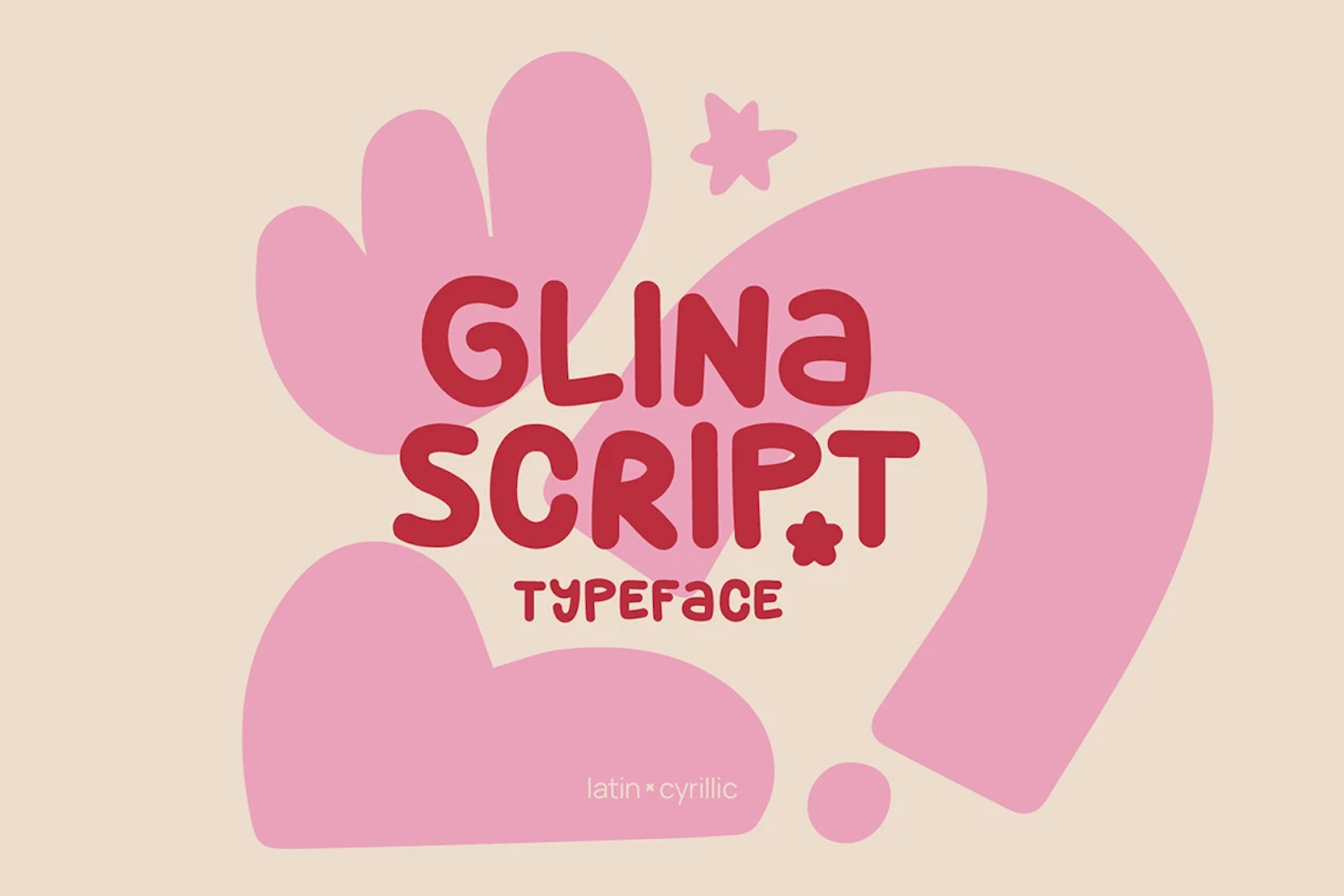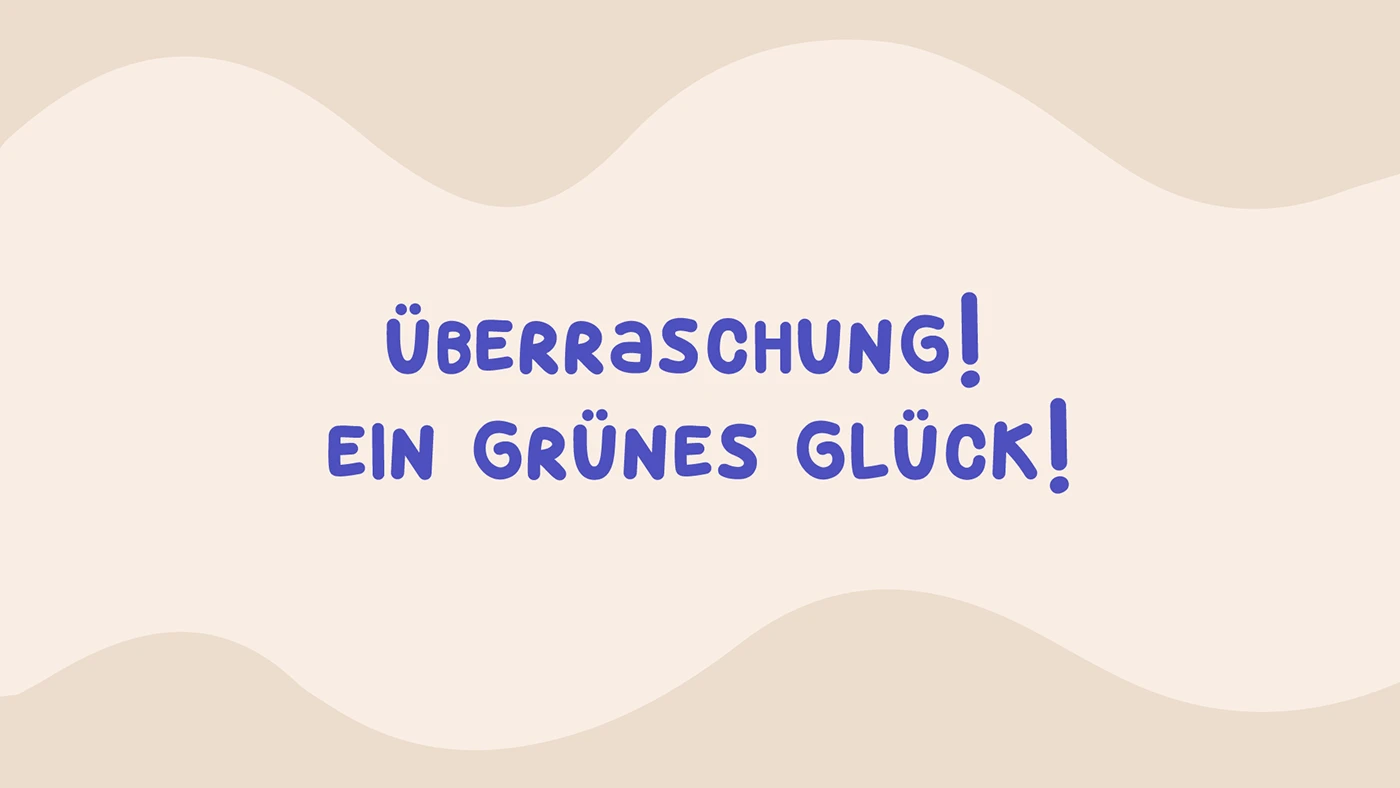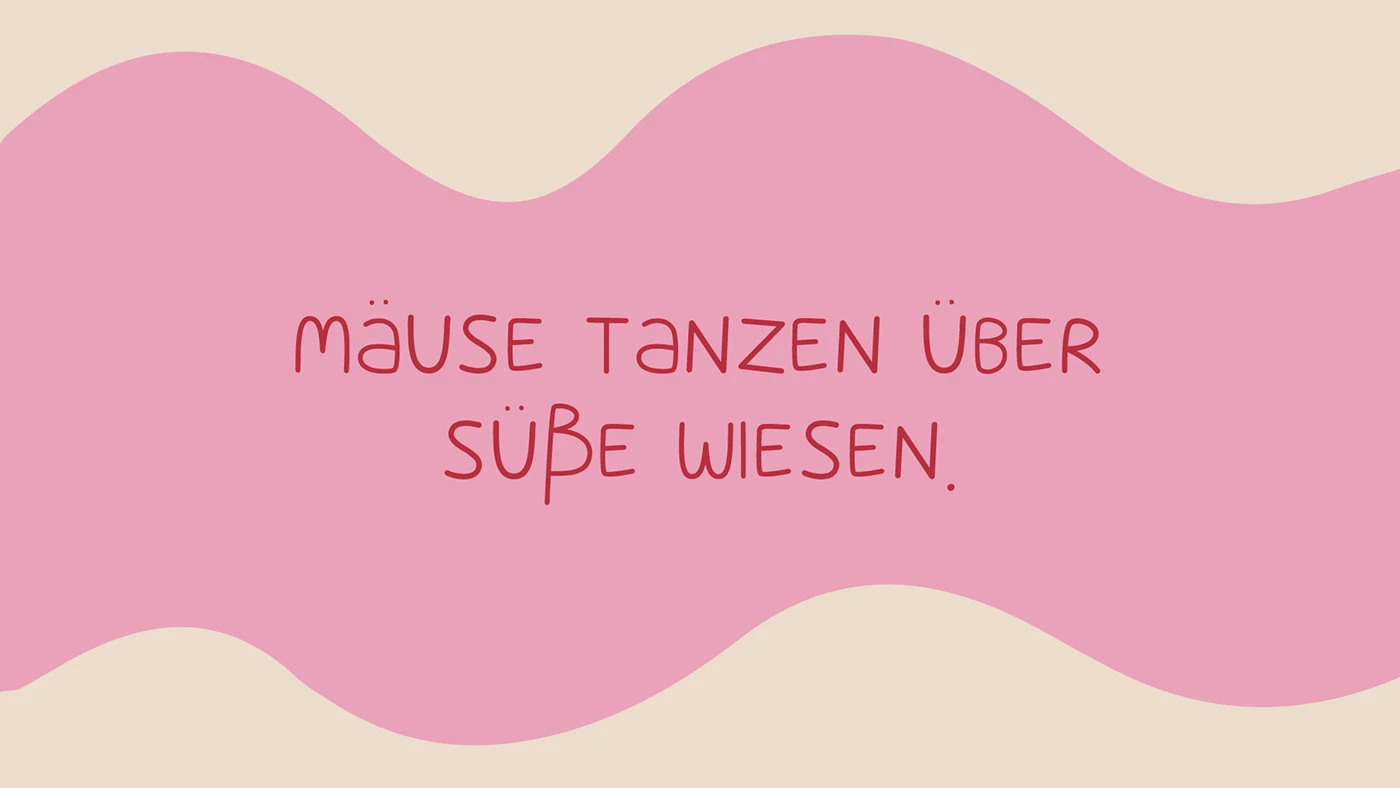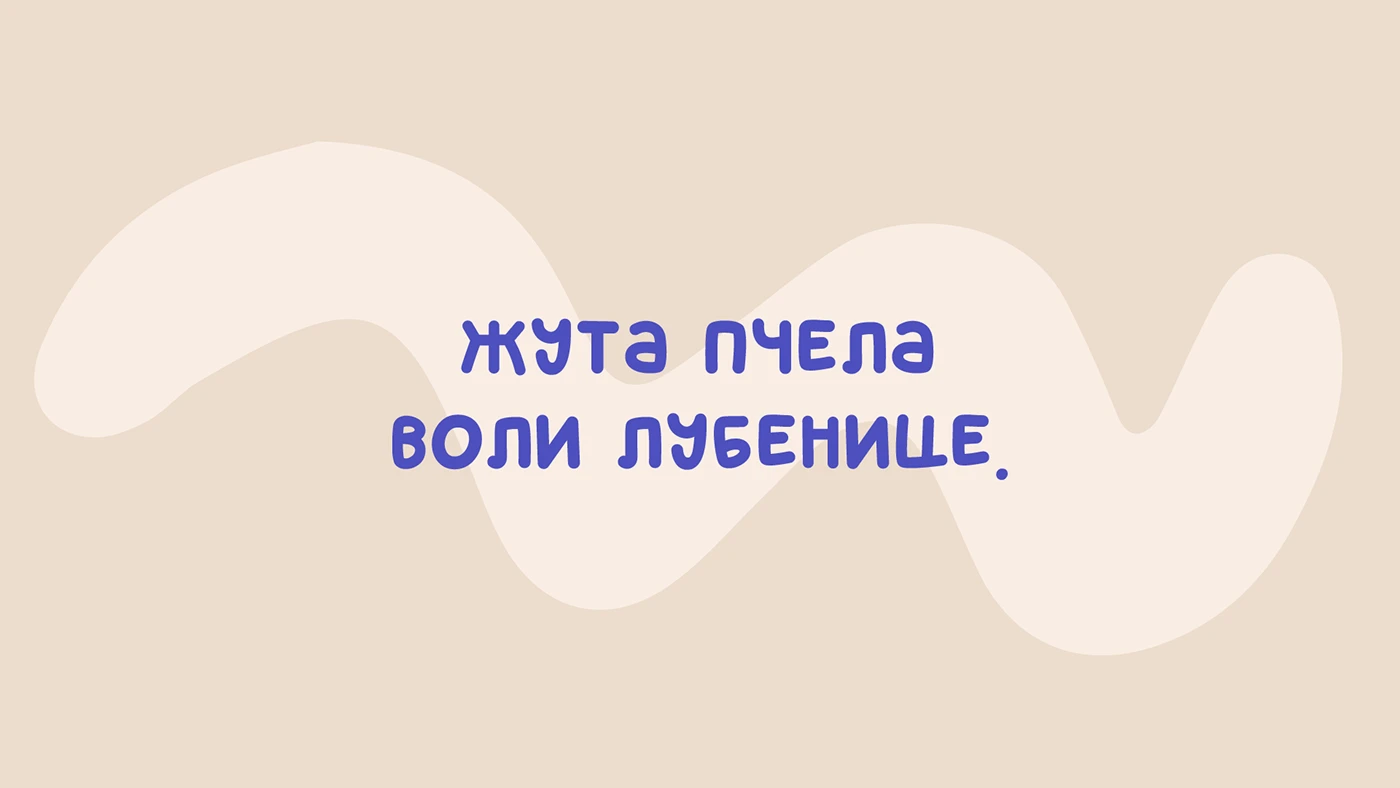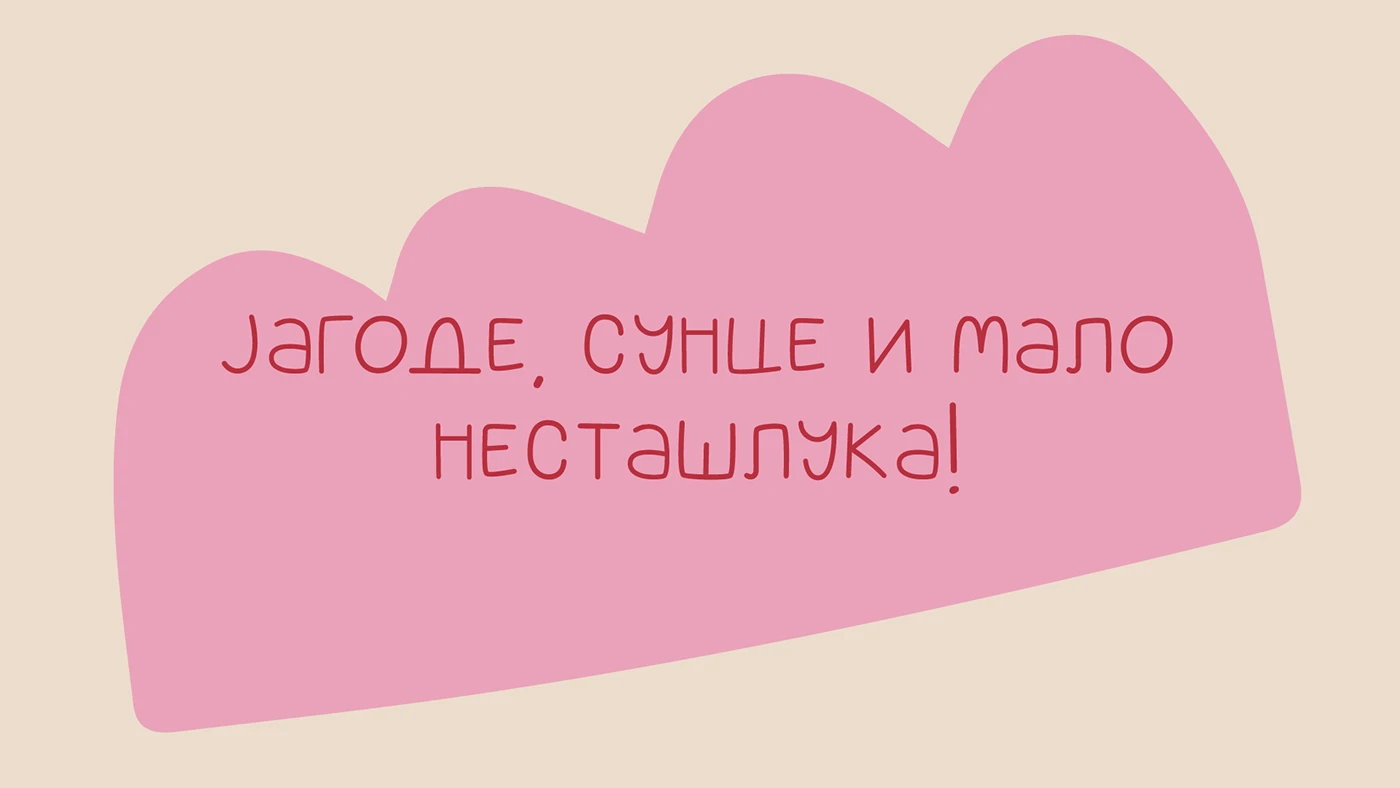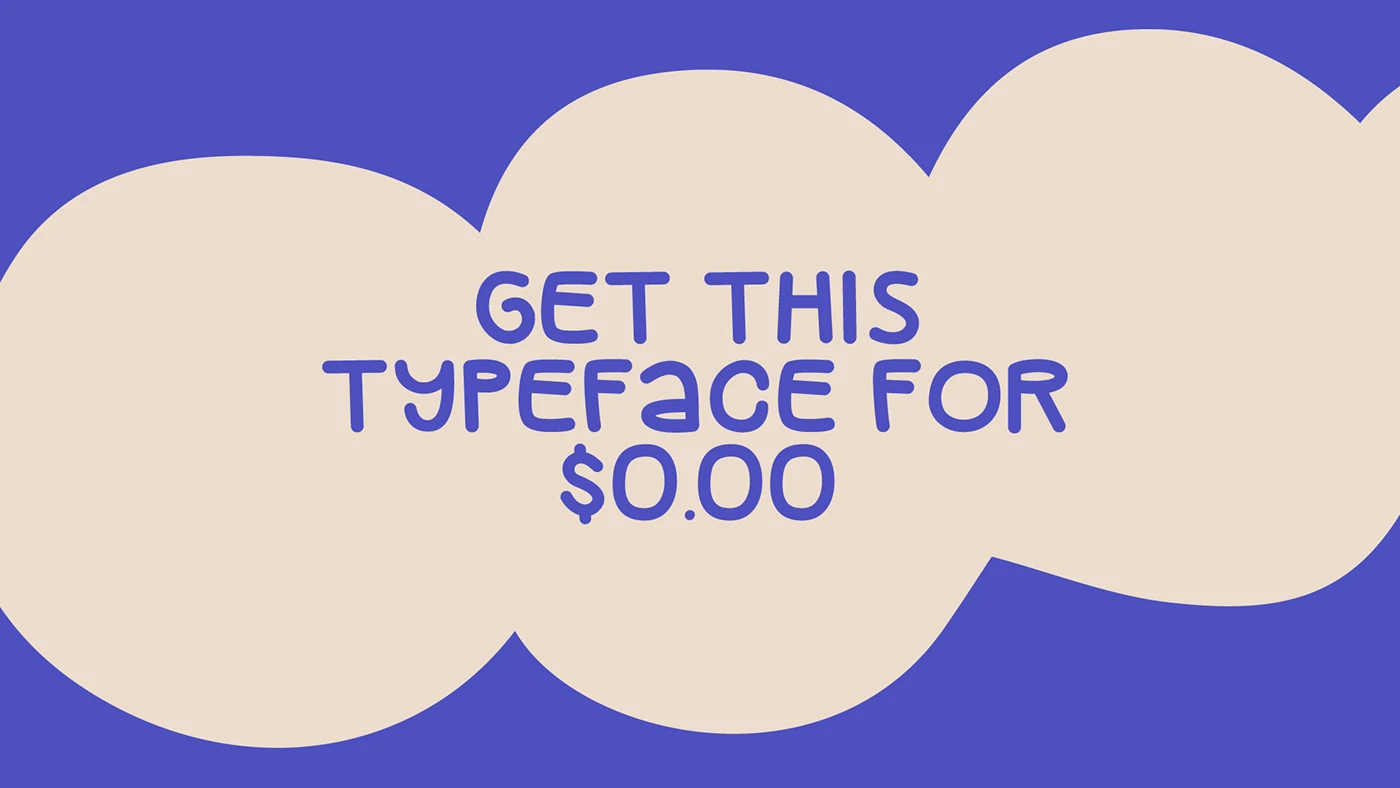
Glina - Free Handwritten Typeface
Glina is a handwritten typeface by Liese Marsd with a soft, pliable character. Designed for Latin and Cyrillic in two styles, it is best suited for comics. The typeface also includes numbers and some symbols.